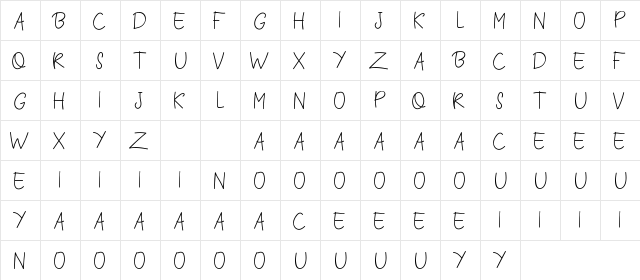
Kelsey Wilson Demo Sans Regular
| Foundry | Edric Studio |
| Designer | Yasri Ainun & Suci Anita |
Design Context for Kelsey Wilson Demo Sans Typeface
Kelsey Wilson Demo Sans is a composed and adaptable typeface that performs quietly and consistently across a wide range of design contexts.